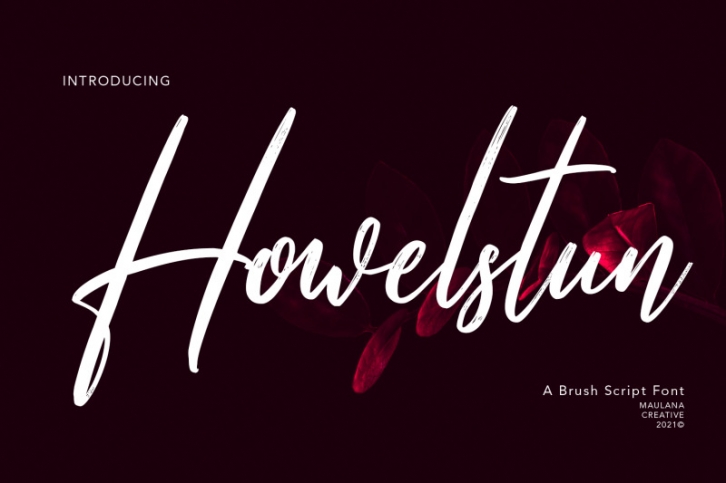
Howelstun Brush Script Font Download
Howelstun is a soft brush script font, with a light soft brush stroke, slanted and fun character. It has Opentype features ligatures of character, To give you an extra creative work. Howelstun soft brush font support multilingual more than 100+ language. This font is good for logo design, Social media, Movie Titles, Books Titles, a short text even a long text letter and good for your secondary text font with sans or serif. Make a stunning work with Howelstun font.